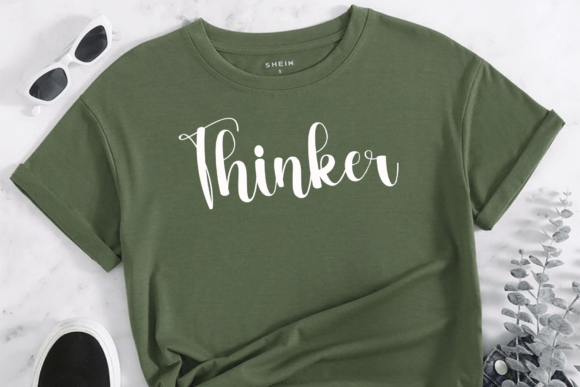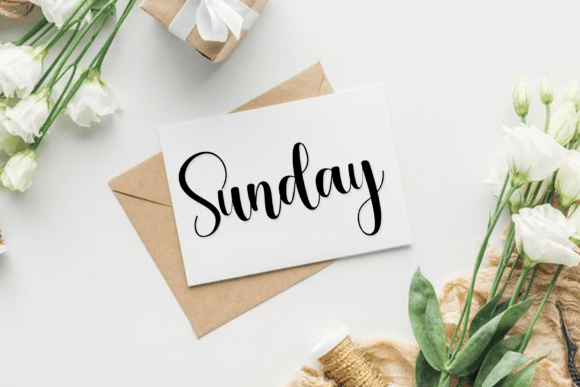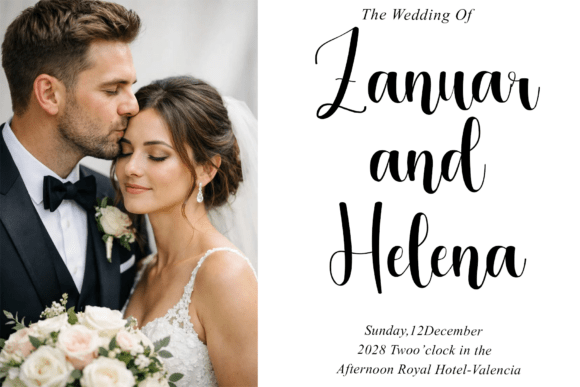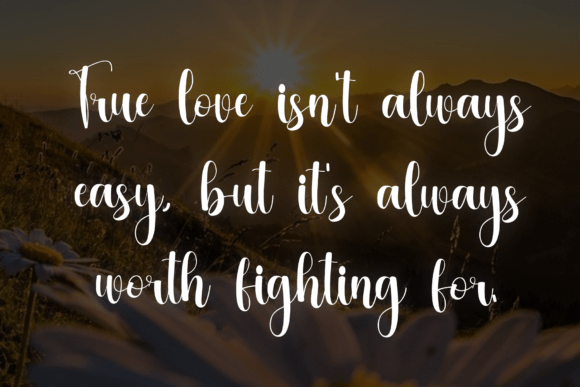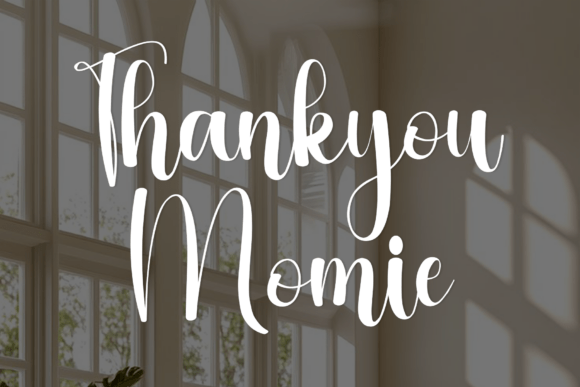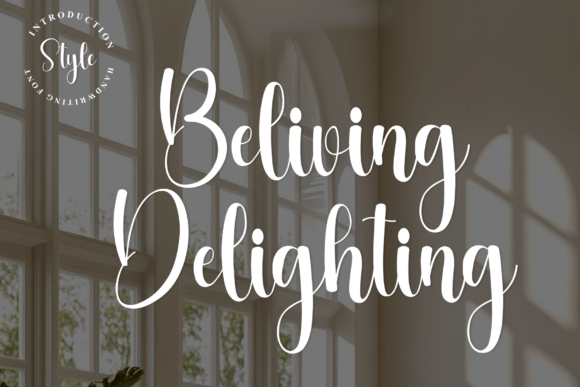
Beliving Delighting Font: Elevate Your Design with Elegance and Sophistication
In the realm of modern handwritten fonts, Beliving Delighting emerges as a unique and professional addition, crafted to infuse designs with a sense of clarity and crisp elegance. This font is characterized by its tall, thin strokes and a subtle, airy slant, which collectively offer a refined aesthetic reminiscent of a refreshing mountain breeze. Whether you’re a designer, a crafty DIY enthusiast, or a business owner looking to elevate your brand, Beliving Delighting is poised to become your go-to choice for projects that demand a touch of sophistication.
The Essence of Beliving Delighting Font
Beliving Delighting is not just another font; it’s an experience. Its design is meticulously thought out to evoke a sense of freshness and elegance, making it perfect for applications where a clean and approachable style is paramount. The tall, thin strokes contribute to its elegant appearance, while the subtle slant adds a dynamic, yet understated, flair. This balance ensures that the font remains highly legible across various mediums, from digital screens to print materials.
Ideal Applications for Beliving Delighting
Given its refined and airy aesthetic, Beliving Delighting finds its sweet spot in several key areas:
- Travel Photography: For travel photographers and bloggers, Beliving Delighting offers a font that can complement the natural beauty of their work without overpowering it. It adds a professional touch to titles, captions, and body text, enhancing the overall appeal of their portfolios or blogs.
- Outdoor Gear Branding: Brands that specialize in outdoor gear and equipment can leverage the fresh, mountainous vibe of Beliving Delighting to strengthen their identity. It works exceptionally well for logos, packaging, and marketing materials, helping to convey a sense of adventure and reliability.
- Sophisticated Web Design: In the digital realm, Beliving Delighting can be a game-changer for websites that aim to offer a premium user experience. Its clean lines and elegant flow make it suitable for headings, body text, and even UI elements, contributing to a cohesive and sophisticated online presence.
Why Choose Beliving Delighting?
Choosing a font for your project can be a daunting task, given the multitude of options available. However, Beliving Delighting stands out for several reasons:
- Versatility: Its elegant yet approachable style makes it versatile enough to be used across different platforms and project types.
- Legibility: The font’s design prioritizes readability, ensuring that your message is conveyed clearly and effectively.
- Uniqueness: In a sea of generic fonts, Beliving Delighting offers a distinctive look that can help your designs stand out.
Tips for Using Beliving Delighting Effectively
To maximize the impact of Beliving Delighting in your projects, consider the following tips:
- Pair it Wisely: Combine Beliving Delighting with complementary fonts to create visual interest. A sans-serif font for body text can create a nice contrast.
- Play with Weights: If Beliving Delighting comes in multiple weights, experiment with them to add hierarchy and depth to your designs.
- Consider Color: Choose colors that resonate with the vibe of your project. Earth tones, blues, and greens can enhance the font’s fresh and elegant feel.
In conclusion, Beliving Delighting is more than just a font; it’s a design statement. Its unique blend of elegance, clarity, and freshness makes it an invaluable asset for designers and crafters looking to elevate their work. Whether you’re aiming to create stunning travel photography presentations, craft a compelling brand identity for outdoor gear, or design sophisticated websites, Beliving Delighting is the perfect companion on your creative journey.